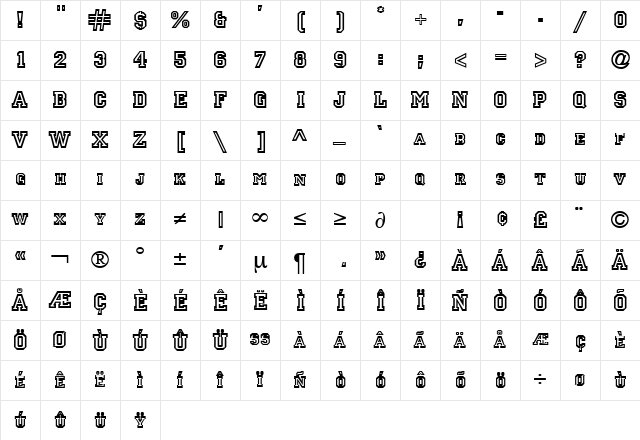
Principal Regular
Principal Family
Design Context for Principal
Principal is a composed and adaptable typeface that performs quietly and consistently across a wide range of design contexts.